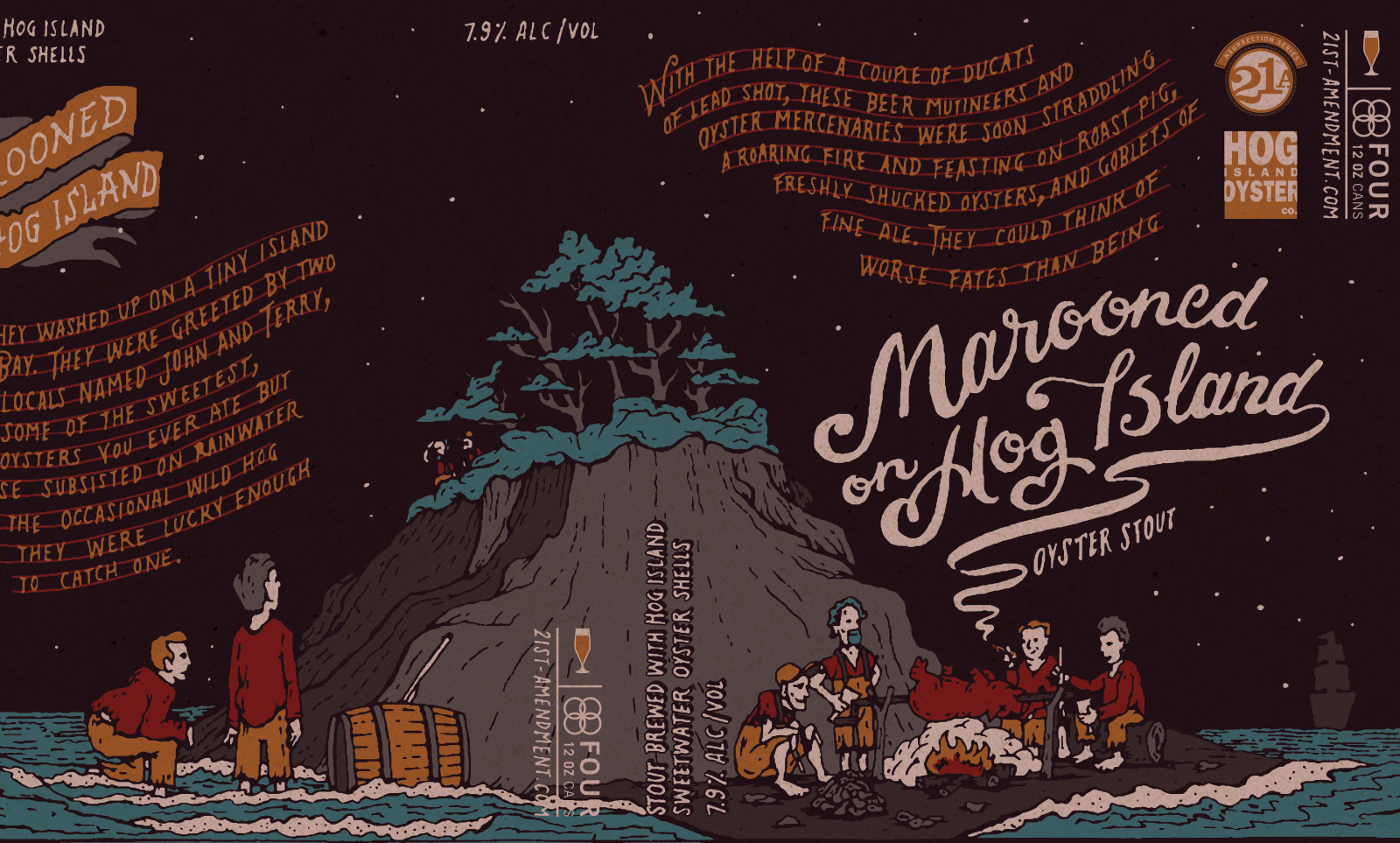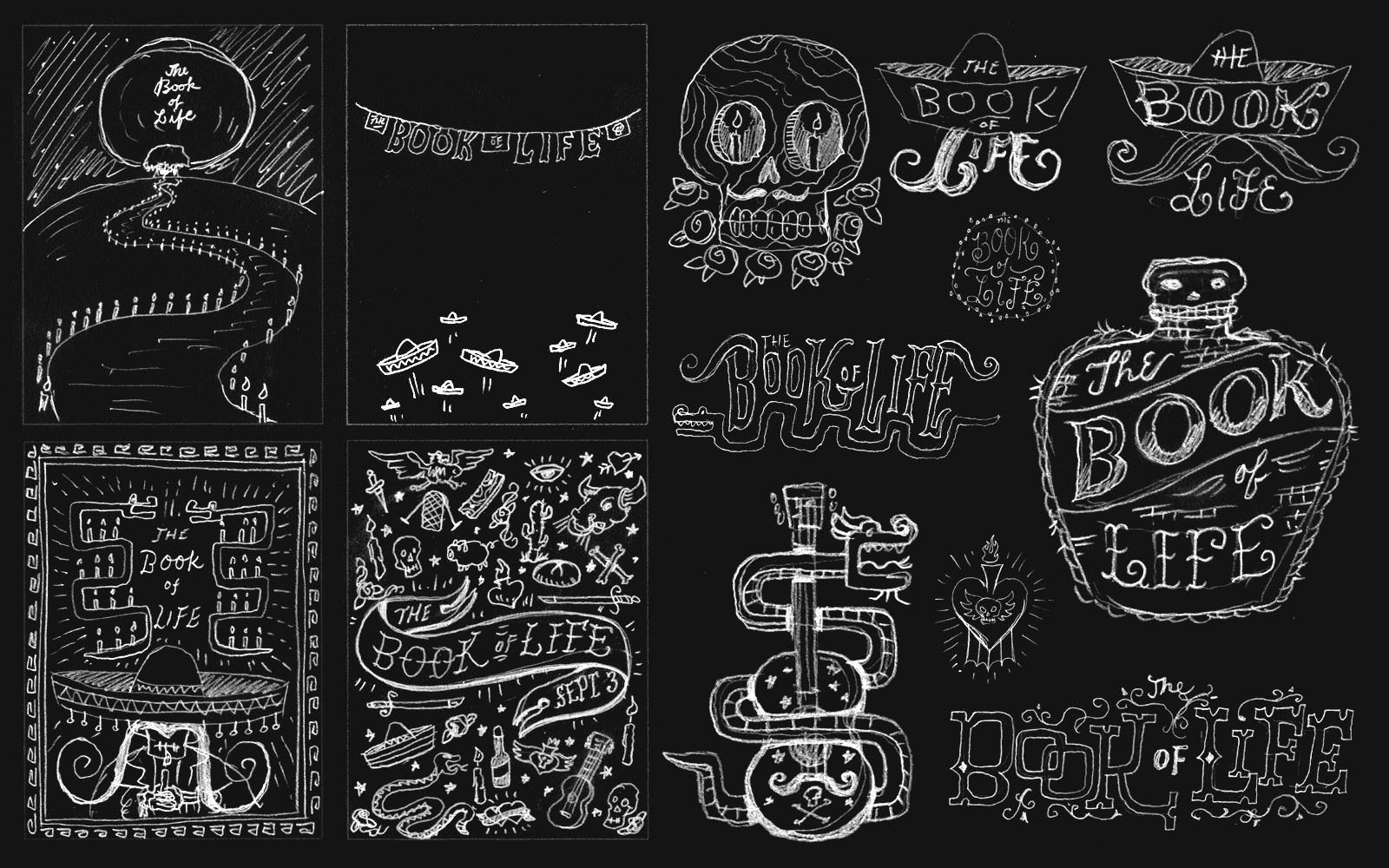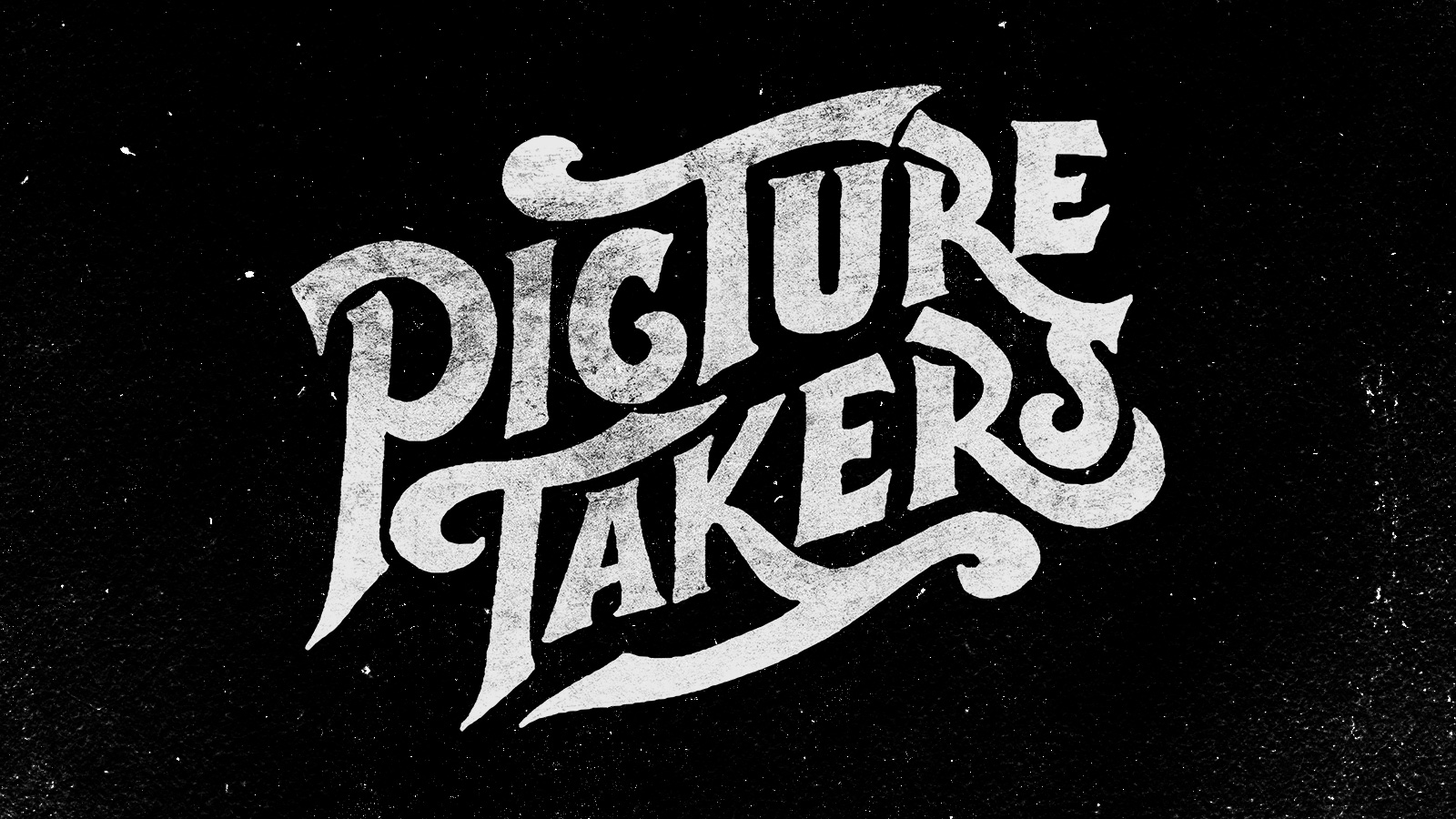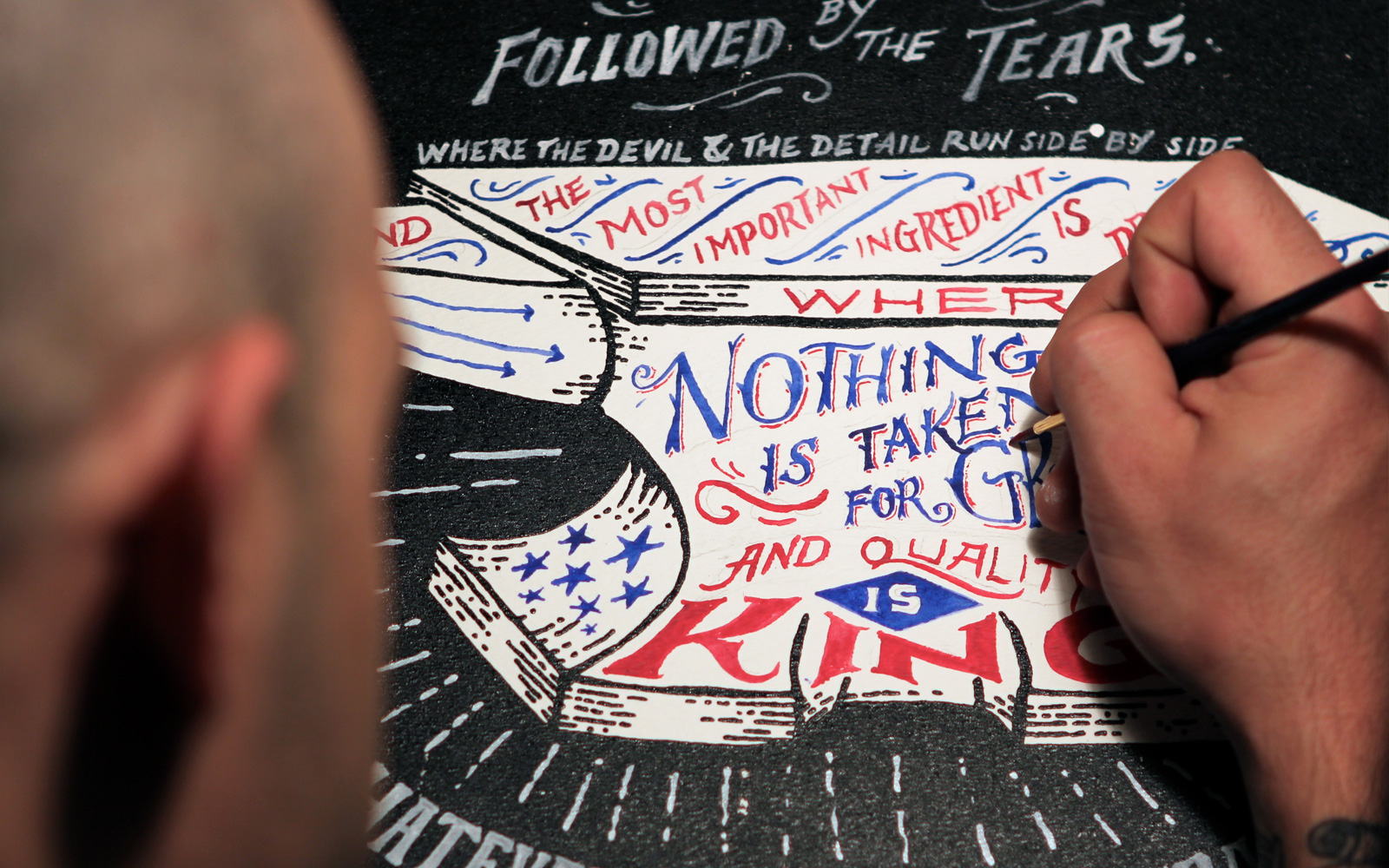
Lettering Legend - Jon Contino Interview
Jon Contino is a New York based lettering artist who has built up a body of work that has caught the eye of many. The style in which Jon creates is very unique and isn't confined to levels of perfectionism that are almost impossible to achieve by hand, and can stop some lettering artists from ever progressing. His skills don't just centre around lettering, he is a proficient illustrator too. Jon combines his lettering and illustrative skills to create original well executed pieces of work that have a lot of thought put into them. His work is not just limited to paper or the digital world either, Jon has created mosaic murals and his lettering has been used on apparel and will soon feature within his own line, the 'Contino Brand'.
By working hard Jon has encountered some amazing opportunities throughout his career. He has worked with The Art Directors Club, Adobe, Harper Collins, Microsoft, Jameson Whiskey, Element Skateboards and Nike. There are many more established brands, businesses, magazines, organisations, entertainment providers, fashion entities and others that Jon has had the pleasure of working with too. He has also been honoured with various different awards whilst working as a lettering artist.
Jon is very deserving of being classed as a 'Lettering Legend', he has inspired many with his way of working and has helped to keep a classic vintage style of lettering alive. Jon has created lettering and illustrations for packaging and clothing that not only inspire artists alike, but the people that end up with those products in their homes and businesses too. He has also at present created two Skillshare classes, Illustration and Lettering: A Hands-on Approach to Label Design and Layouts for Lettering: Hierarchy, Composition, and Type Systems. In both of these classes he shares his knowledge, skills and passion for lettering in an honest and helpful way.
After reading the following interview you won't be left struggling with how to start lettering if you haven't yet begun, as Jon shares some really specific tips. He also talks about how he was able to come up with so many different lettering concepts for the Book of Life film, how he was able to get past imperfection in his work and discusses more too.
You get the opportunity to design a monogram and rebrand any existing superhero, which superhero would you choose and what style of lettering would you apply to the monogram and rebranding?
"Ironic question because I literally just finished a project doing branding for a superhero, but I don't think I'm allowed to talk about it yet. If I had to pick a different one, maybe I'd go with Spawn? I feel like he could use a little updating. I'd probably make it a weird neo-gothic style with a hint of modern linework to make it feel a bit more up to date."
A lot of your lettering features textures that look hand made, is this the case and do the textures get transferred when you digitise your lettering or do you add them after? Do you have any tips for applying texture to lettering?
"It's actually a little bit of both. I've been photographing and collecting textures for almost 20 years, so any time it's not hand-made, they're pulled from a vault of stuff that I've been hoarding for the better part of two decades. Honestly, every single time I apply a texture it's an experiment. There's no one way to do it and a lot of times I'll mess around with it so much that I won't be able to duplicate it again. It can be a Photoshop layer, Illustrator noise, scanner experiments, iPhone experiments, or just plain hand-distressing. Whatever the piece calls for really."
Packaging and product design are both areas where lettering is often used. When working on these types of projects yourself do you plan and create the lettering to specifically fit the product or packaging you’re designing for? Are there any other things that need to be taken into consideration when designing lettering for this kind of work?
"Every single project is the same. There's a problem that needs to be solved and a means to an end. It doesn't really matter if it's packaging or a billboard or a logo. Everything follows the same path of execution. The only difference with packaging is that a lot of times you need to consider the legalese that's there for one reason or another and how to work that in. Sometimes it's hand-drawn, other times it has to be a font for legal reasons. If it is though, I try to accommodate that into the style of lettering so it doesn't look super out of place."
You collaborated with 20th Century Fox to create lettering, illustrations, branding, a font and more for the Book of Life film by Guillermo Del Toro. You came up with so many different and varied styles of lettering when designing for the project, and retained a high level of consistency throughout. How did you keep things so consistent whilst coming up with so many different lettering styles?
"This is one of those intangibles that's hard to describe. For that particular project, we had a world that was already extremely vivid before I stepped into the branding side of things. We also had the Day of the Dead as a backdrop. So between those two things, there was basically an infinite amount of possibilities of how to put it all together. For me, I like to get engrossed in the topic. Research takes up about 50% of the work I do, at a minimum. If I'm not living and breathing the world I'm working in, then it's next to impossible to create realistically for it. I remember one of the best compliments I ever received was from the film's creator, Jorge Gutierrez. He said, "I can't believe you're not Mexican!" It was really funny at the time, but I mean, just hearing that meant that I got into the swing of things just right. I felt really accomplished hearing that, so I knew that my mindset was exactly where it needed to be to go off and create all the pieces necessary for the robust branding package."